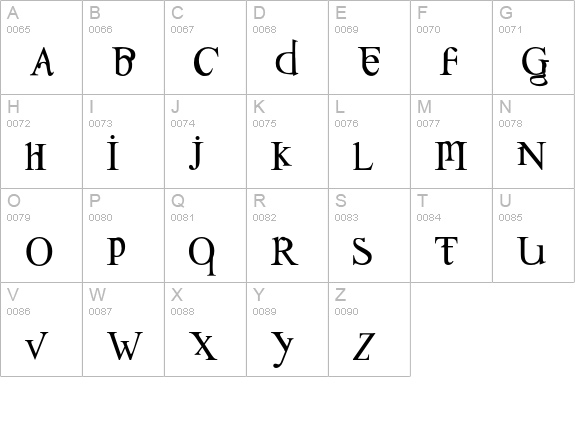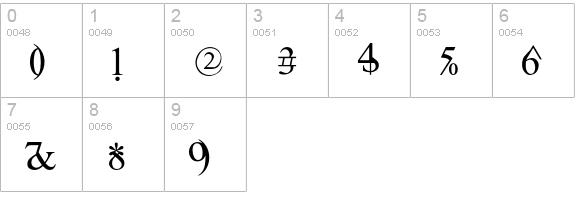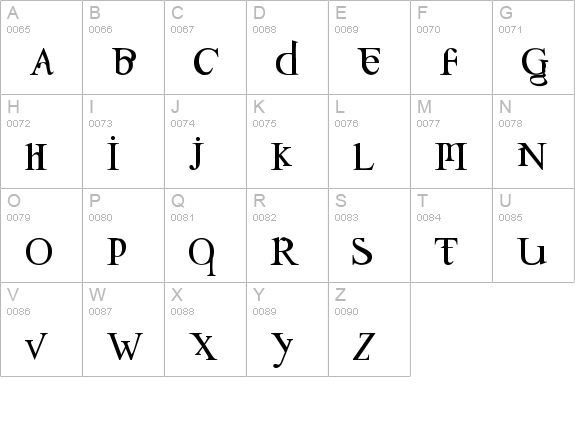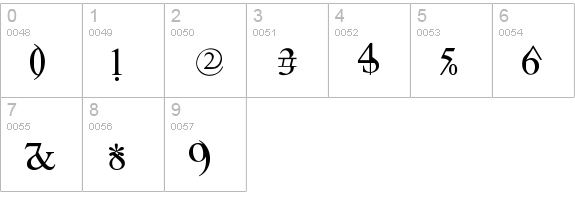
Confusebox Font Details
Confusebox font is a unique and eye-catching typeface that will add a touch of intrigue to your designs. Its playful yet sophisticated style is perfect for projects that require a bit of whimsy and charm. The irregular shapes and quirky details of Confusebox give it a distinct and memorable look that will make your text stand out. Not only does Confusebox font offer a one-of-a-kind aesthetic, but it also provides excellent readability and versatility. Whether you're creating a logo, branding materials, invitations, or social media graphics, this font is sure to make a statement. The best part is that Confusebox font is completely free to download at FontsMarket.com. Now you can add this captivating typeface to your collection without any cost, making it a valuable addition to your design resources. Don't miss out on the opportunity to enhance your projects with the charm and creativity of Confusebox font.